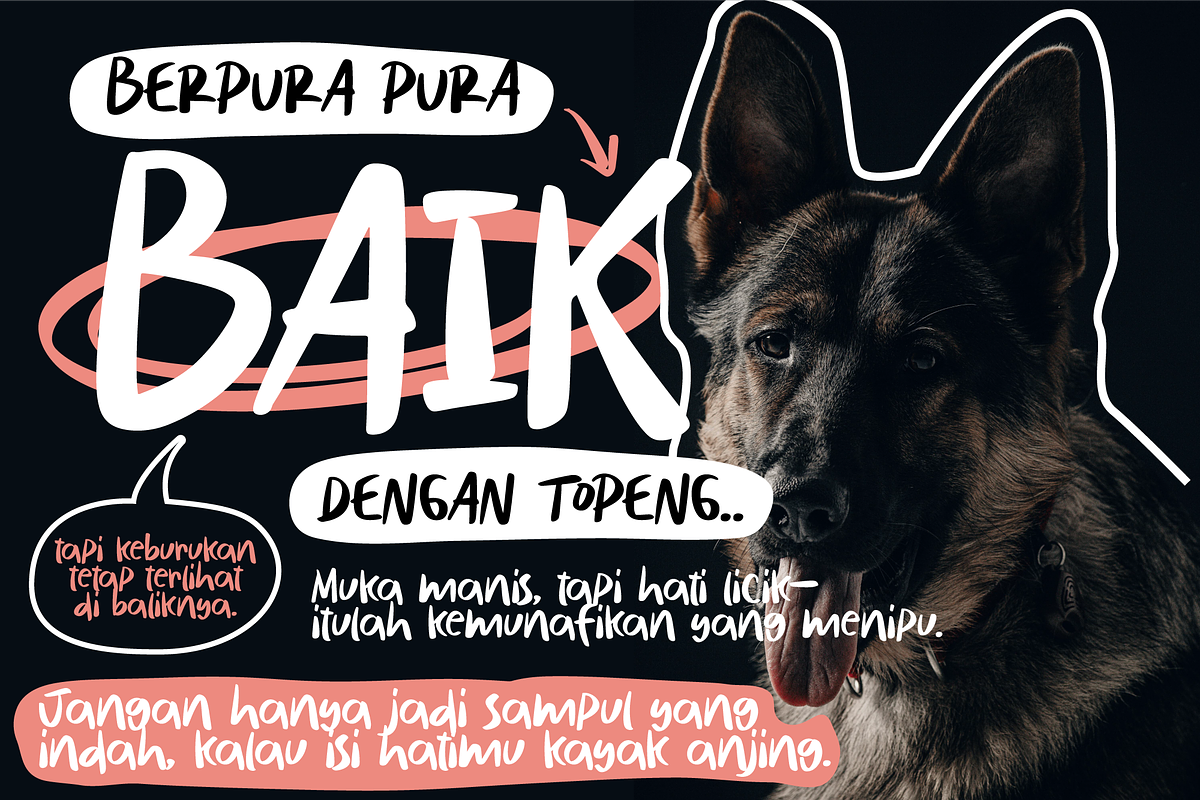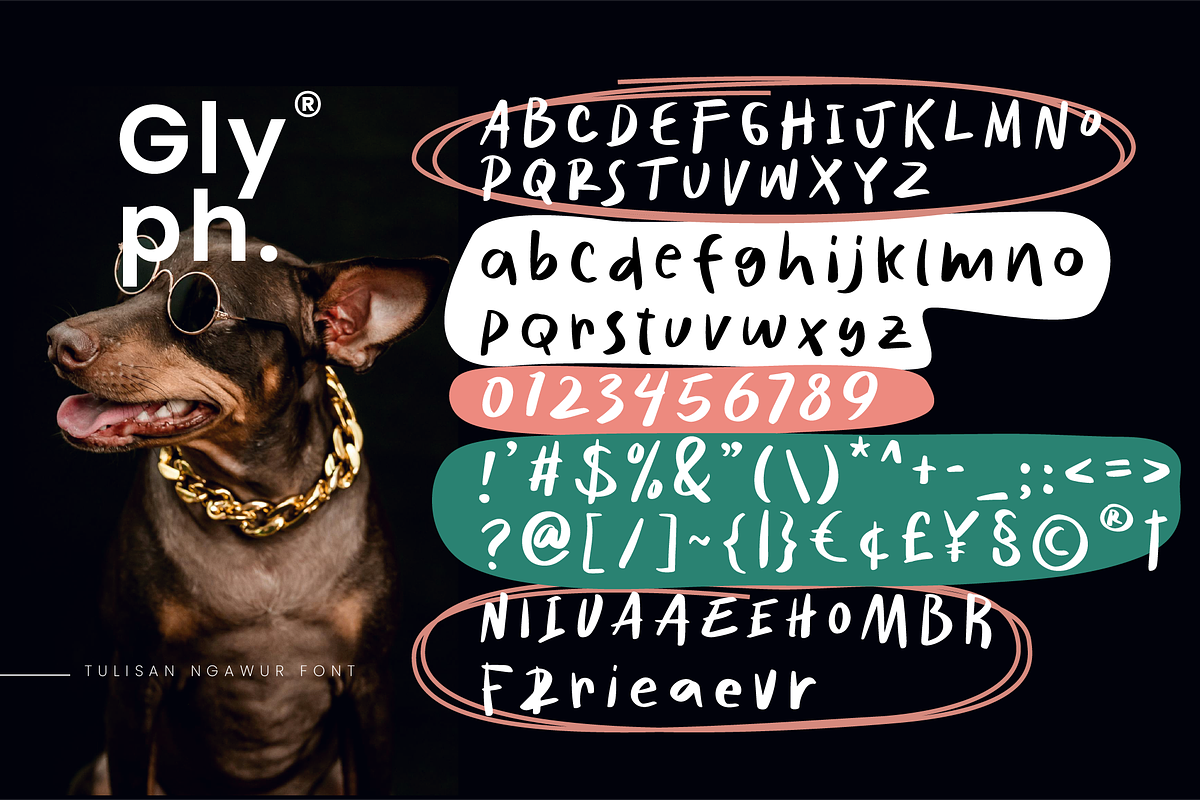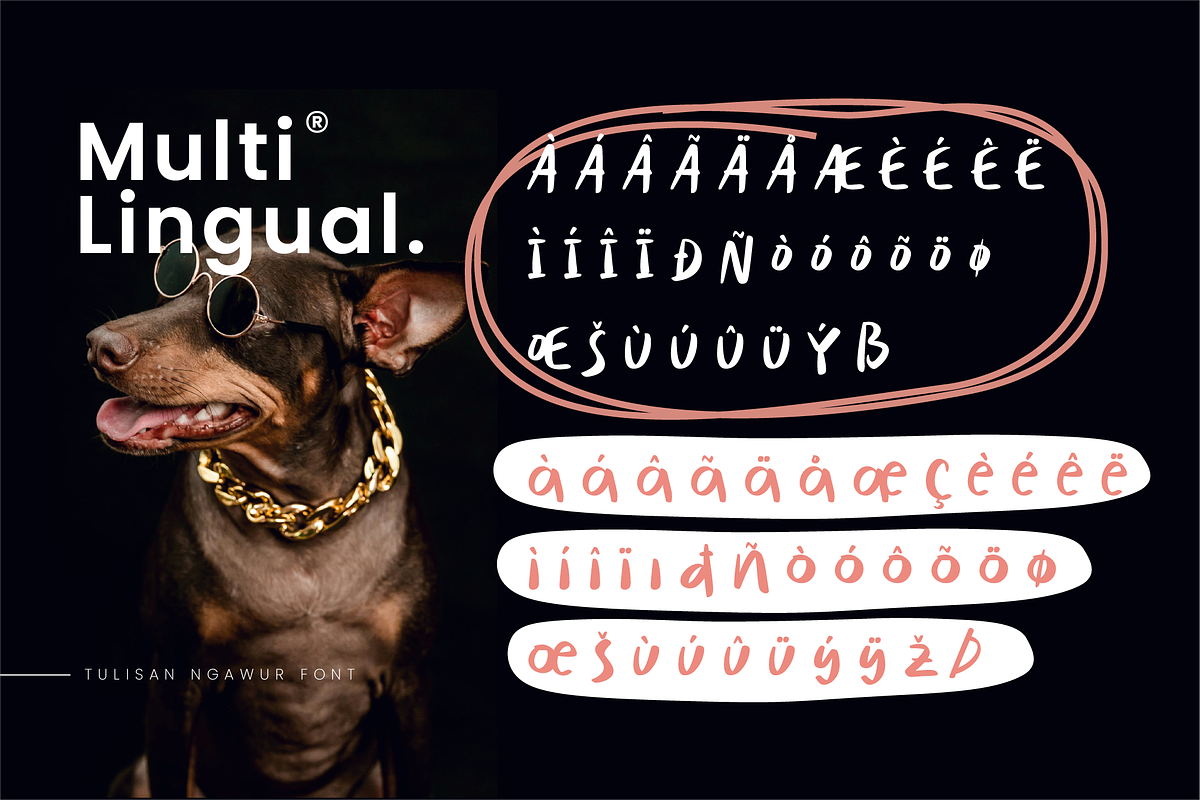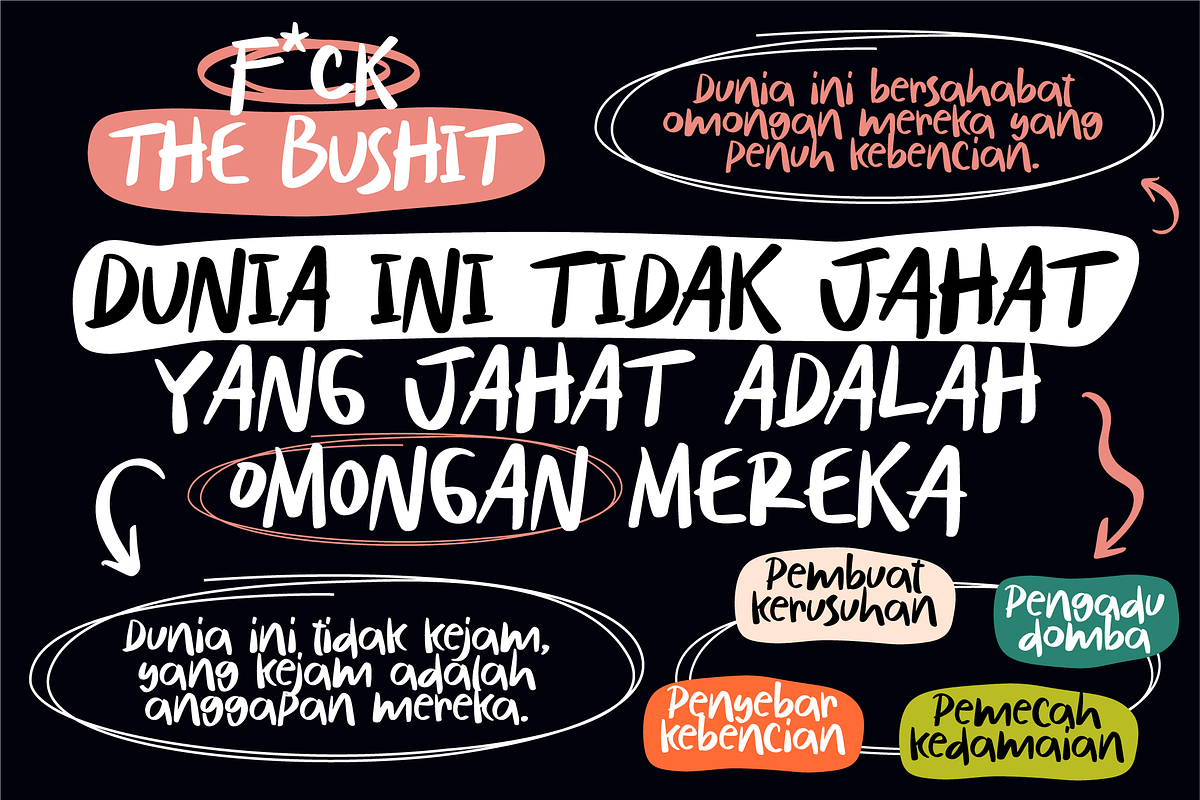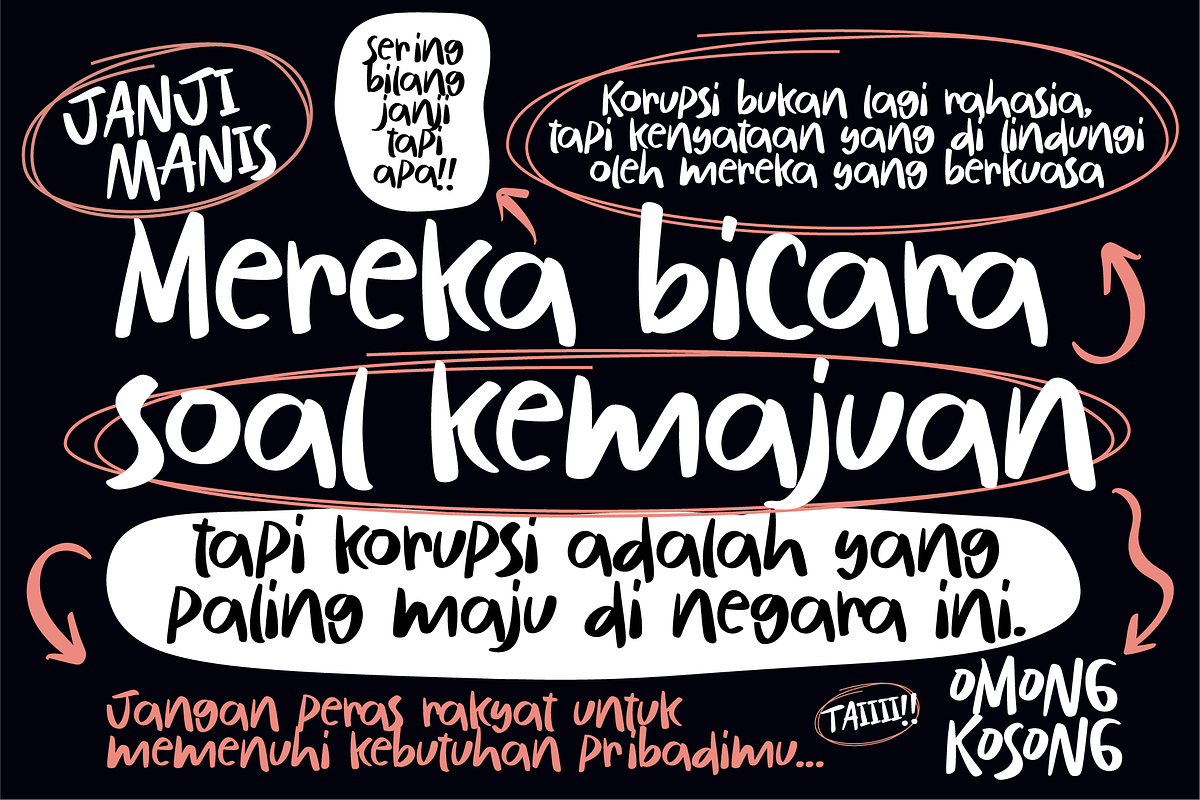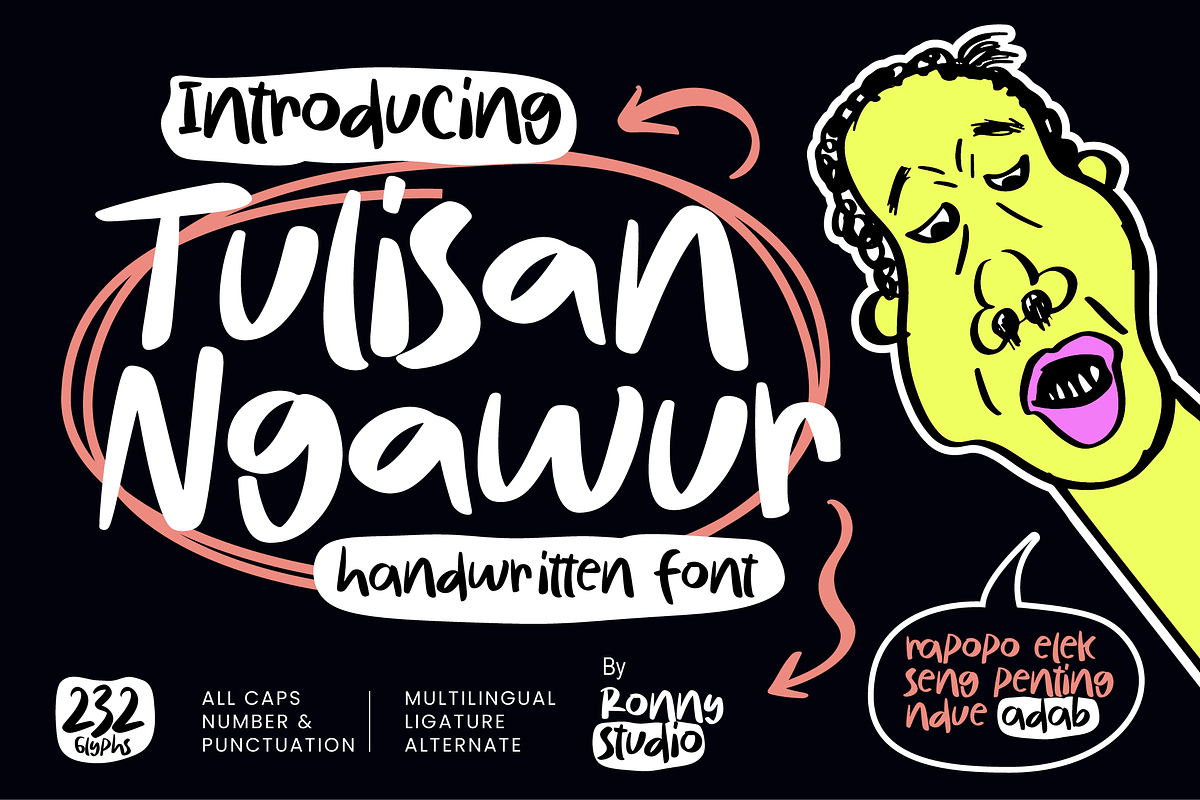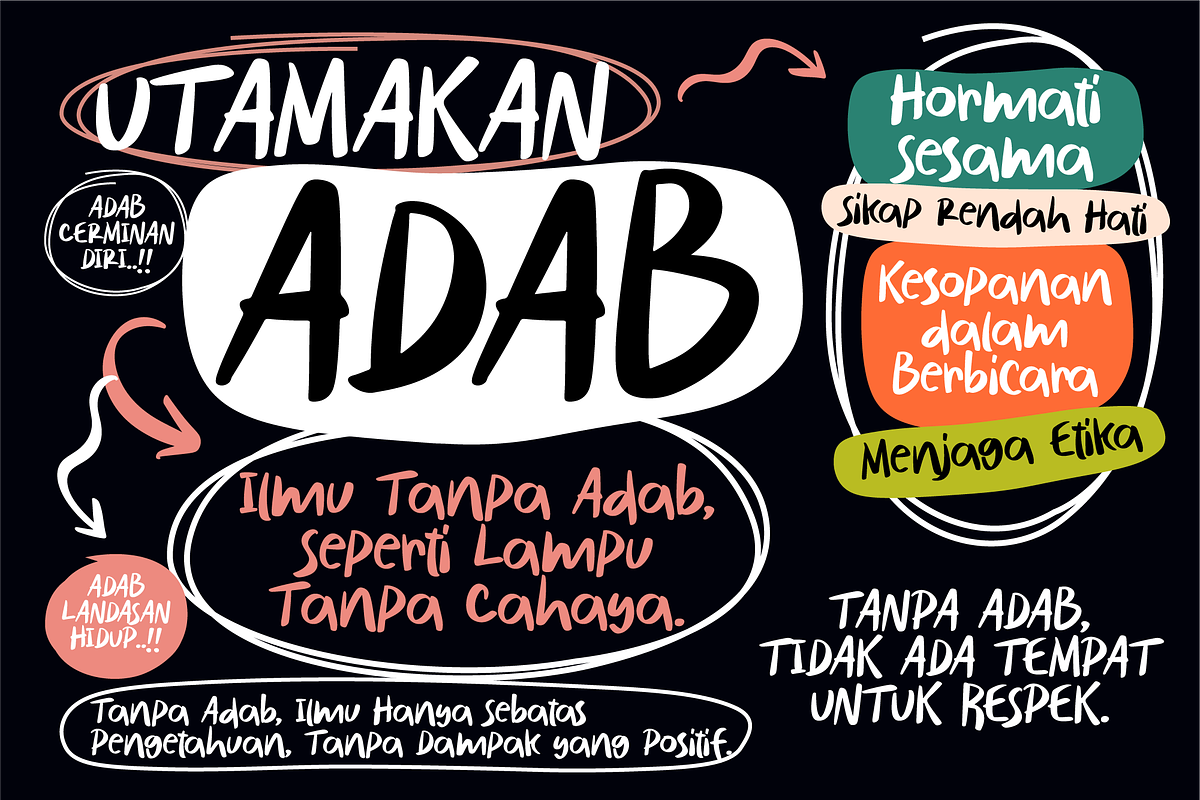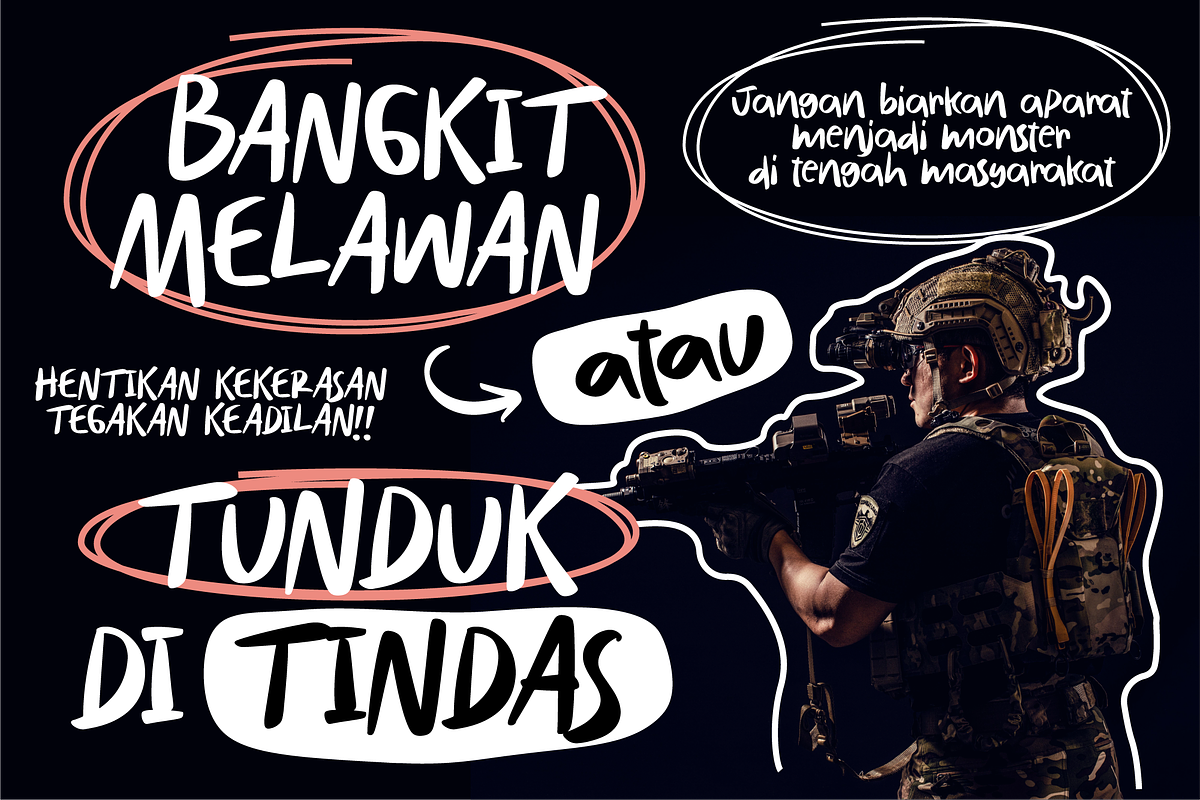
Tulisan Ngawur Playful Handwritten
Tulisan Ngawur – Playful Handwritten Font for Fun and Creative Designs
Introducing Tulisan Ngawur, a playful and quirky handwritten font designed to infuse your creative projects with a fun and casual vibe. With its lively letterforms and organic flow, Tulisan Ngawur is perfect for posters, merchandise, social media content, branding, and any design project that calls for a relaxed and creative touch.
Its handcrafted style adds a personal flair to your typography, making your designs stand out with charm and authenticity.
- Playful Handwritten Style – Captures the essence of casual, lively handwriting for a fun look.
- Complete Character Set – Includes uppercase, lowercase, numbers, punctuation, and multilingual support.
- Alternates & Ornaments – Additional decorative characters and flourishes for creative versatility.
- Fun and casual posters and promotional materials
- Creative social media content and digital graphics
- Branding for playful products, kids’ designs, or casual merchandise
- Invitations, greeting cards, and other personal stationery
- T-shirt designs, stickers, and handmade product labels
- Any project that requires a quirky and unique handwritten touch
Bring a playful and fun personality to your typography with Tulisan Ngawur!